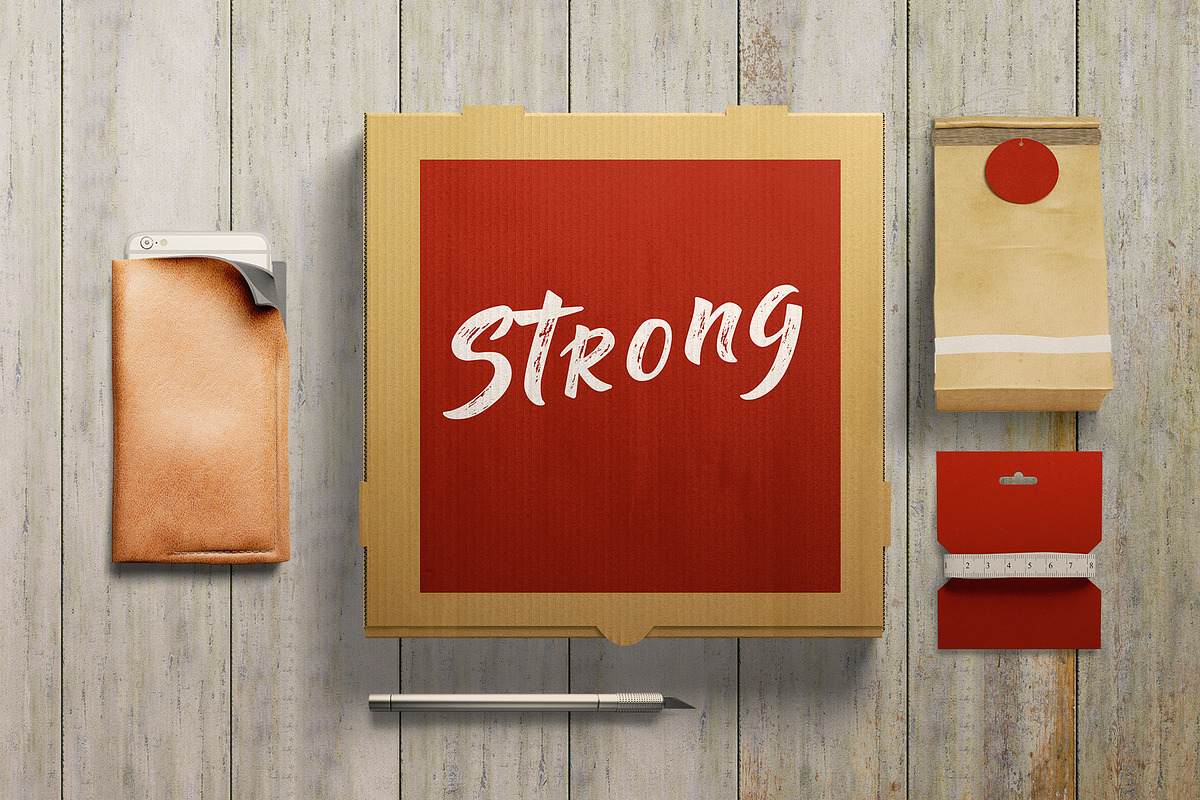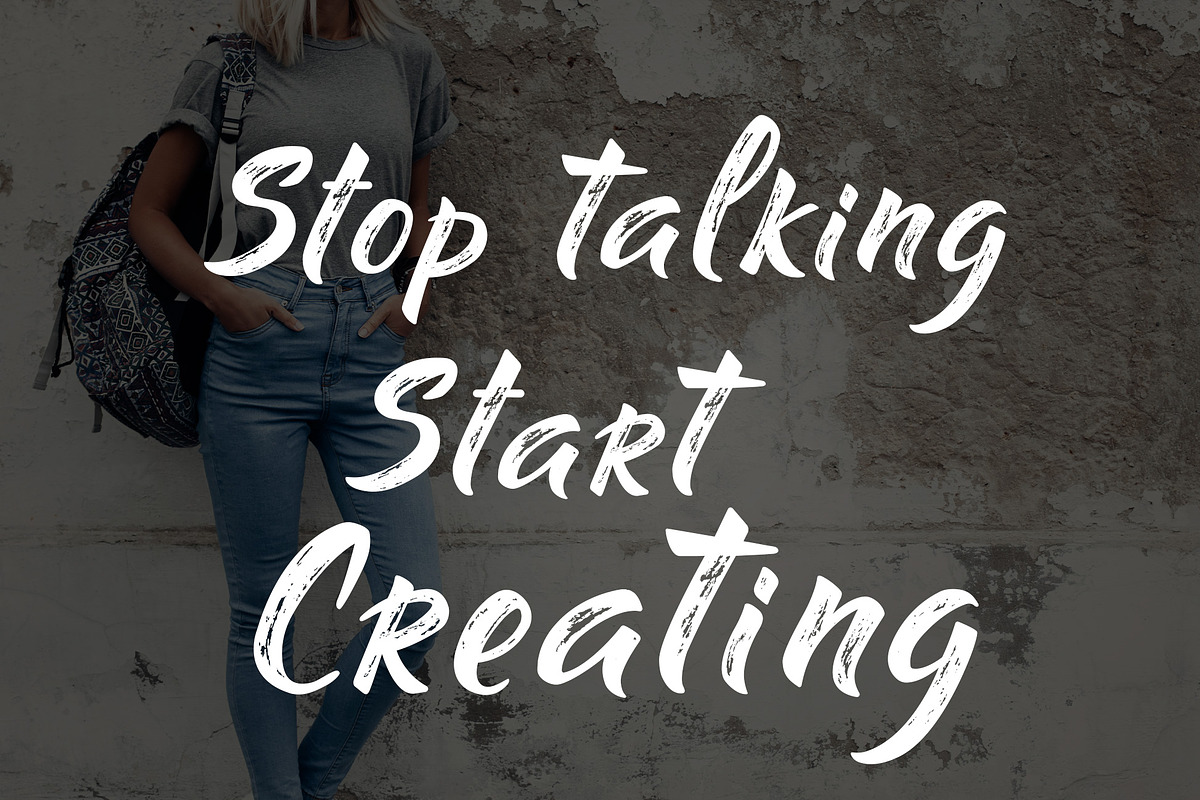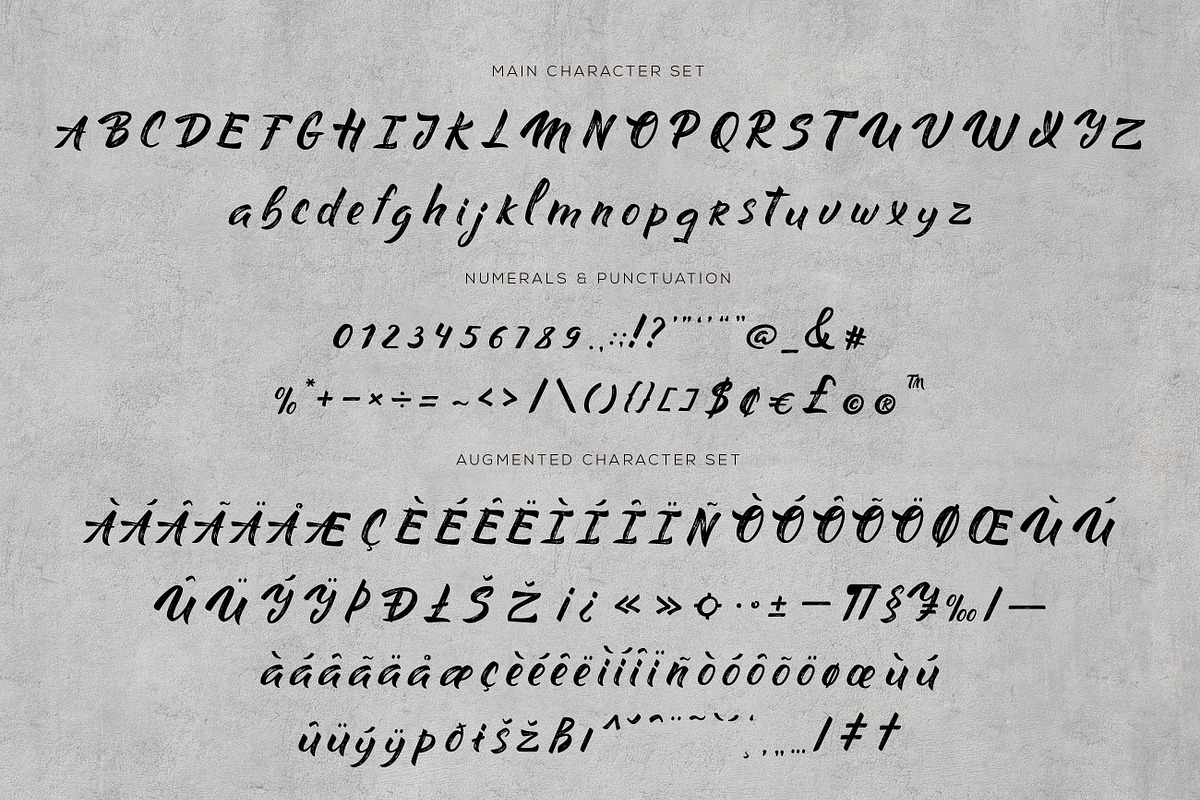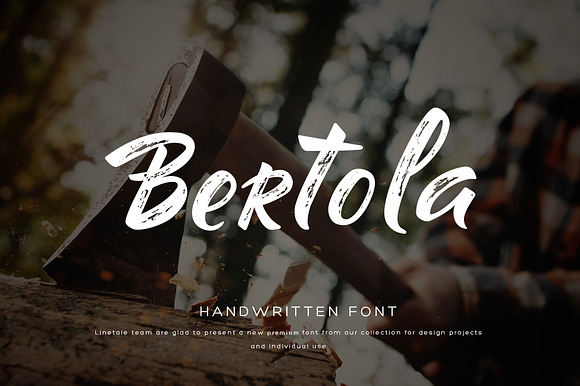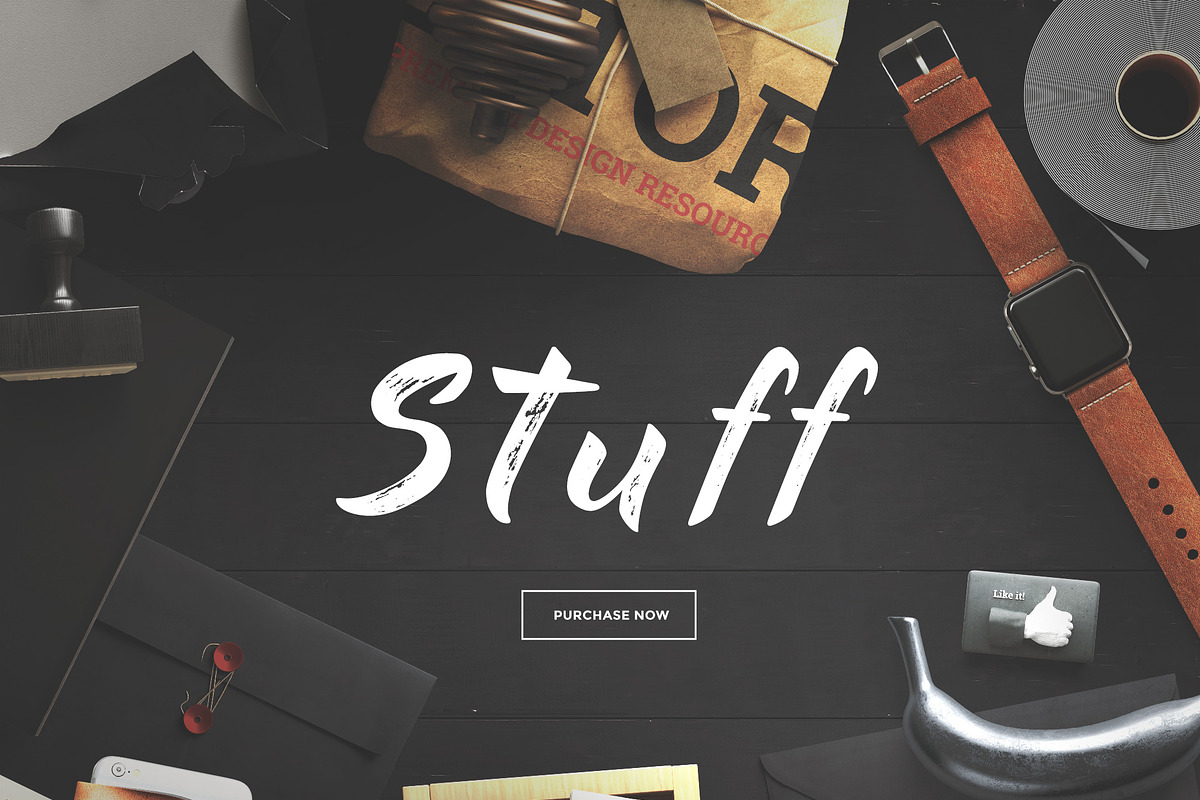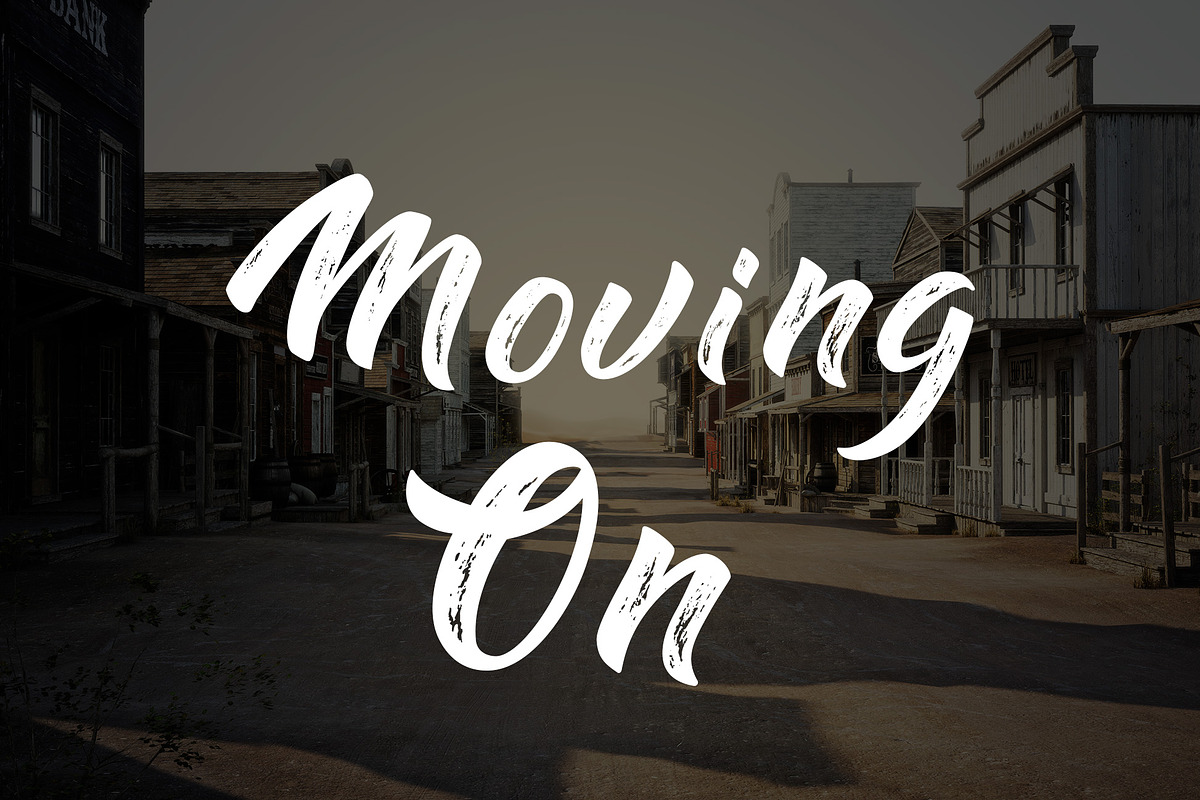
Bertola font
We present you a new handwritten textured font with smooth edges. Bertola more masculine, a bit brutal, with contrasting transitions from texture to smoother lines, created with a brush will perfectly complement your design or become part of the branding. You can use on logo designs, product packaging, handwritten quotes, merchandise, social media posts or any projects. The font also helps to get ligatures when letters are connected.
- The font also helps to get ligatures when letters are connected.
Why Bertola font is worth a look
Bertola font by LineTale fits naturally into Branding, posters, packaging, typography.